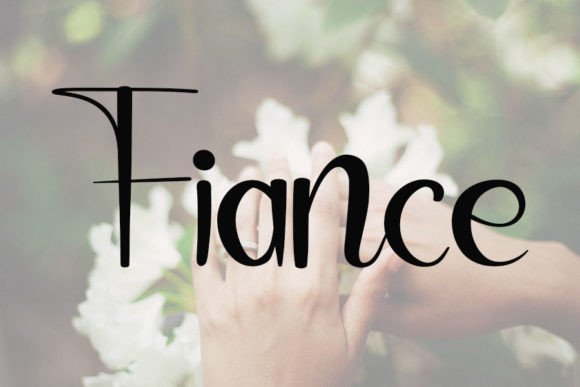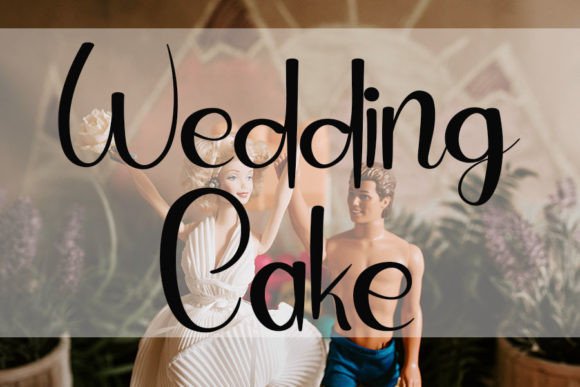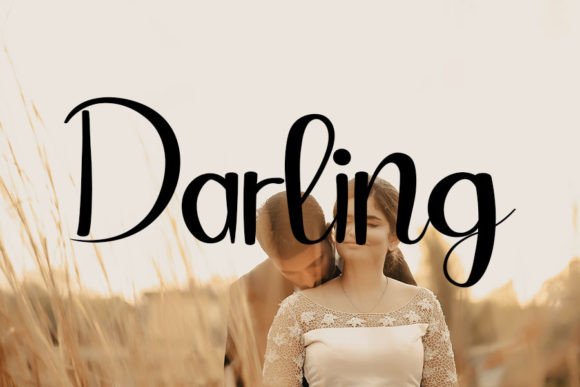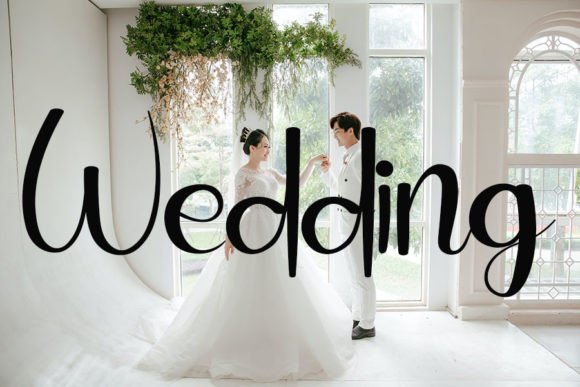
The Perfect Brushstroke: Discover the Timeless Charm of Hanimon Font
Have you ever sat in front of your computer, staring at a blank canvas, waiting for inspiration to strike? It’s that moment when creativity flows, and the perfect font can make all the difference. For designers, finding the right font can be a game-changer, setting the tone for a project and elevating it to new heights.
Enter Hanimon Font, a beautiful handwritten font that brings an elegant touch to any design. Its distinct and timeless style makes it perfect for a wide range of projects, from wedding invitations to branding materials. With Hanimon Font, you can add a personal and sophisticated touch to your work, making it stand out from the crowd.
Hanimon Font Key Features
- Unique Characteristics: The Hanimon Font is known for its distinctive, handwritten style, with irregular line widths and subtle imperfections that give it a personal, touch.
- Language Support: The font supports a wide range of languages, including Latin, Cyrillic, Greek, and many others, making it suitable for use in multilingual publications and designs.
- Font Style: The Hanimon Font is available in both Regular and Bold weights, allowing users to choose the style that best suits their design needs.
- Scalability: The font is designed to be highly scalable, allowing it to be used effectively in a wide range of applications, from small text to large headlines.
Hanimon Font Review
As a designer, I was excited to dive into the Hanimon Font and see what it has to offer. Here’s my honest review.
- The Hanimon Font has a unique and quirky feel to it, making it perfect for designers looking for something off the beaten path.
- The font is highly customizable, allowing you to adjust the weight, spacing, and other features to fit your specific design needs.
- The font is also highly legible, even at small sizes, making it a great choice for digital design projects.
- The Hanimon Font may not be suitable for formal or professional projects, as its quirky feel may not be taken seriously in some contexts.
- The font can be quite bold and attention-grabbing, which may be overwhelming for certain designs or audiences.
- The font is not as widely supported as some other fonts, which may cause issues in certain software or environments.
The Hanimon Font is a fun and creative font that is perfect for designers looking to add a unique touch to their projects. While it may not be suitable for every project, it’s a great choice for those who want to stand out and make a statement.
Tips for Getting the Most Out of Hanimon Font
To get the most out of the Hanimon font, try using it in combination with other handwritten fonts for a unique look. You can also experiment with different font sizes and colors to add emphasis to your text.
The Hanimon font is ideal for use in creative projects such as wedding invitations, birthday cards, and social media graphics. It’s also a great choice for adding a personal touch to business documents and presentations.